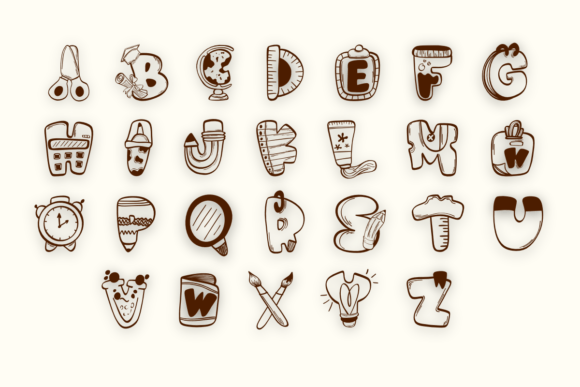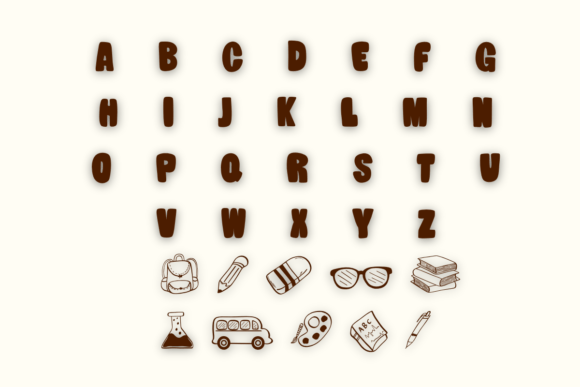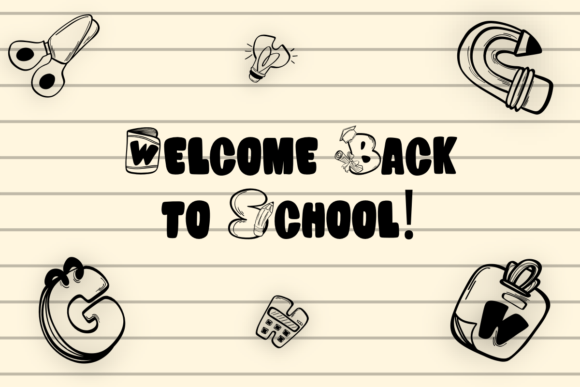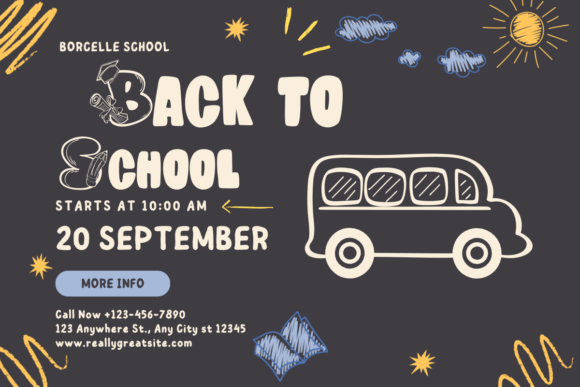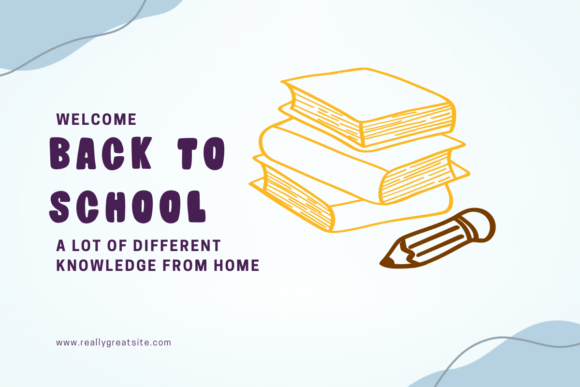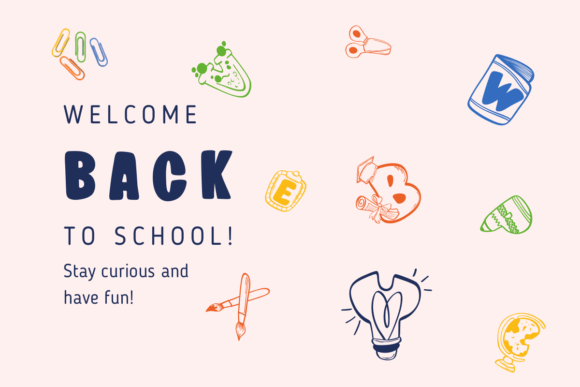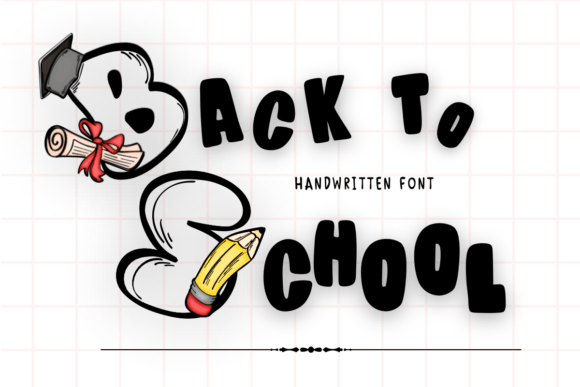
Back to School Font: A Fun and Creative Way to Add Personality to Your Designs
As the new school year approaches, designers and crafters are on the lookout for unique and engaging ways to add a personal touch to their back-to-school projects. One exciting way to do this is by using a specialized font that captures the spirit of learning and creativity. Introducing the “Back to School” font, a fun and imaginative typeface where each letter is designed to resemble different school supplies, such as pencils, rulers, notebooks, and crayons.
What is the Back to School Font?
The “Back to School” font is a one-of-a-kind typeface that combines playfulness with education. Each letter in the font is carefully crafted to look like a specific school supply, making it an ideal choice for school-related projects, decorations, and designs. Whether you’re creating posters, flyers, or social media graphics, this font adds a whimsical touch that kids and adults will love.
Key Features of the Back to School Font
- Unique Lettering Style: Each letter is designed to resemble a different school supply, such as pencils, crayons, notebooks, and rulers.
- Playful and Educational: The font’s design combines playfulness with an educational feel, making it perfect for school-related projects.
- High-Quality Design: The font is meticulously crafted with high-quality design elements, ensuring it looks great in various sizes and resolutions.
- Easily Customizable: The font can be customized to fit your project’s specific needs, allowing you to adjust size, color, and style.
Uses for the Back to School Font
The “Back to School” font is incredibly versatile and can be used in a variety of projects, including:
- School Posters and Flyers: Create eye-catching posters and flyers for school events, such as open houses, parent-teacher conferences, and back-to-school nights.
- Social Media Graphics: Design engaging social media graphics for school-related accounts, including welcome messages, event announcements, and educational content.
- Classroom Decorations: Add a personal touch to classroom decorations, such as bulletin boards, chalkboards, and welcome signs.
- DIY Projects: Use the font for DIY projects, such as making custom labels, stickers, and cards for school supplies and decorations.
Tips for Using the Back to School Font
To get the most out of the “Back to School” font, consider the following tips:
- Pair with Other Fonts: Combine the “Back to School” font with other fonts to create a visually appealing contrast.
- Use Bright Colors: Take advantage of the font’s playful design by using bright, bold colors that match the school supplies theme.
- Experiment with Sizes: Play with different font sizes to create visual interest and emphasize important information.
- Add Graphics and Images: Enhance your designs by adding graphics and images of school supplies, students, or educational themes.
The “Back to School” font is a fun and creative way to add personality to your back-to-school designs. With its unique lettering style, playful and educational feel, and high-quality design, this font is perfect for designers and crafters looking to create engaging and eye-catching projects. Whether you’re designing posters, social media graphics, or classroom decorations, the “Back to School” font is sure to inspire creativity and make your projects stand out.